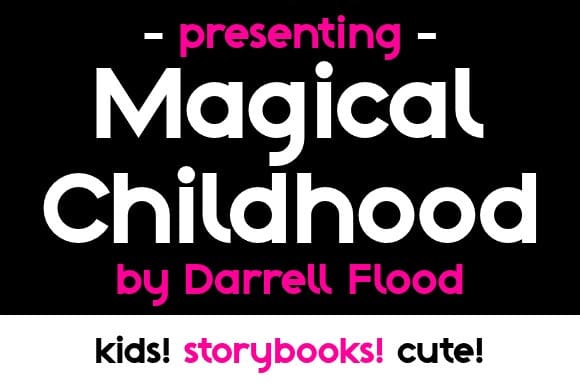
Magical Childhood Font
Magical Childhood Font a crisp and punchy sans-serif in a bold kid friendly style. Perfect for use in picture books, children’s stories, school settings and general everyday use!